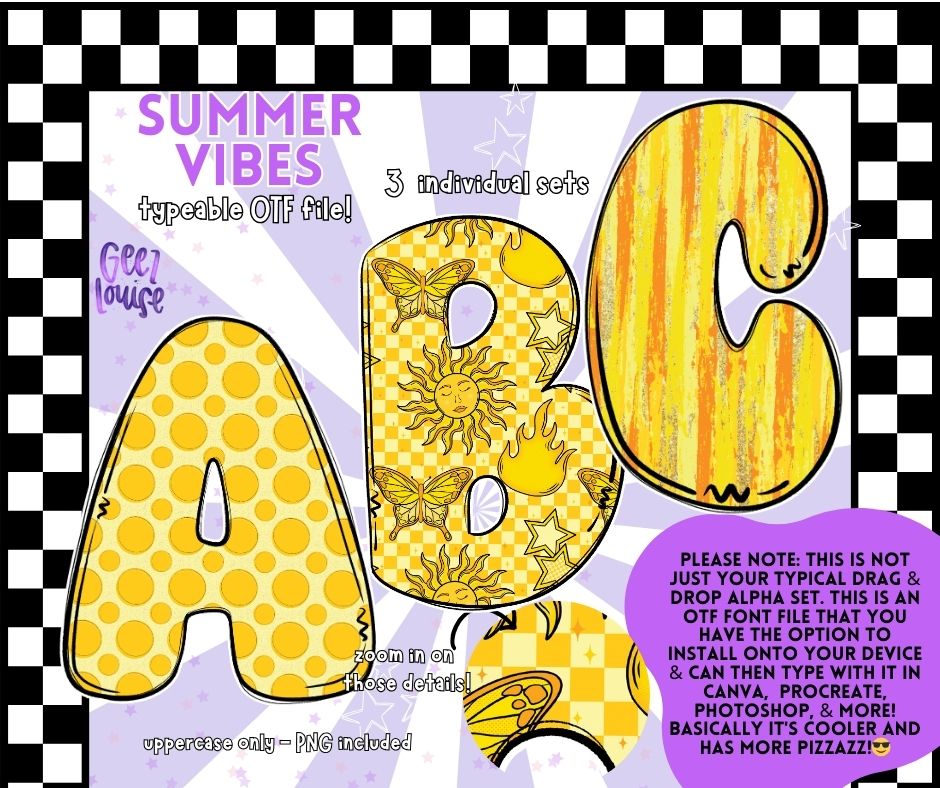
Summer Vibes - Sunshine OTF Font + PNG Alpha Set
Capture all the golden hour magic with our Summer Vibes OTF Font! 🌞🦋 Featuring sunny yellows, playful polka dots, vintage suns, and bright butterfly accents, this summer alphabet font is perfect for sublimation projects, beach party shirts, summer crafting, and sunny decor.
✔️ 3 unique font styles included (polka dots, vintage sun & butterfly, retro stripes)
✔️ Uppercase letters only for bold summer designs